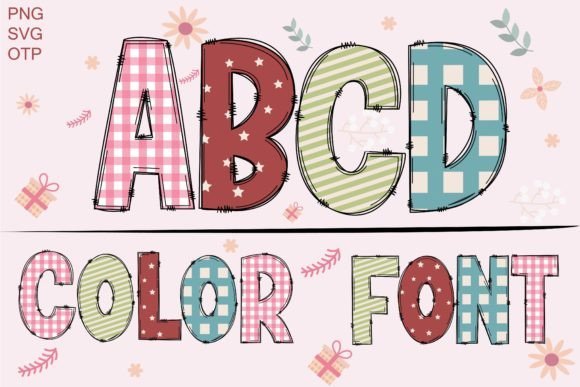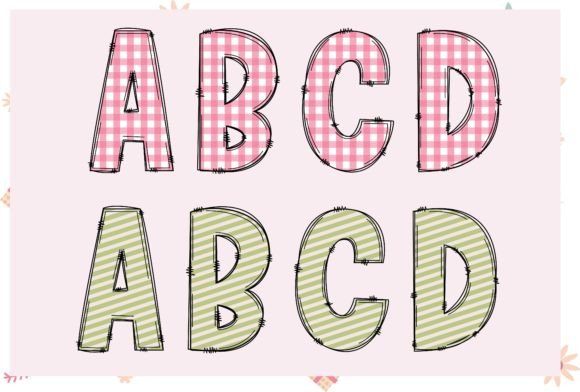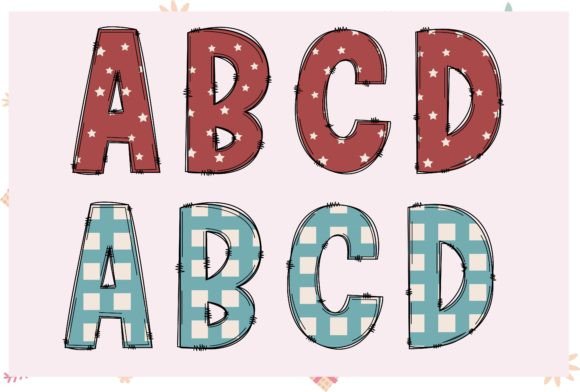
Deck the Halls with the Perfect Font: Christmas Day Font
It’s that time of the year when creativity knows no bounds, and the world is filled with festive cheer. You’re sitting at your desk, surrounded by scraps of paper, glue, and glitter, trying to come up with the perfect design for your holiday card. Suddenly, a spark of inspiration hits you, and you know exactly what’s missing – a font that captures the essence of the season.
Enter the Christmas Day Font, a cool, simple, and playful display font that’s about to take your designs to the next level. This incredibly versatile font is perfect for elevating your creative ideas, whether you’re a graphic designer, artist, or simply a crafty enthusiast. With its compatibility across various software, including PhotoShop, Illustrator, Silhouette, and Inkscape, you can unlock endless possibilities with the Christmas Day Font.
Christmas Day Font Key Features
- Unique Characteristics: Features a festive and playful design, with intricate details and ornaments, perfect for adding a touch of holiday cheer to designs
Christmas Day Font Review
✨ The Christmas Day Font is a unique and eye-catching typeface that perfectly captures the festive spirit of the holiday season. The bold, playful design makes it ideal for Christmas-themed projects, such as greeting cards, gift tags, and social media graphics. The font’s versatility allows it to be used in a variety of contexts, from formal invitations to casual social media posts.
- ✨ The font’s festive feel makes it perfect for Christmas-themed projects.
- ✨ The bold design is easy to read and stands out in various contexts.
- ✨ The font is highly versatile and can be used in a variety of projects.
⚠️ However, there are some limitations to the Christmas Day Font. The font’s design can come across as a bit too flashy or over-the-top for some users. Additionally, the font may not be suitable for projects that require a more subtle or elegant design aesthetic.
- ⚠️ The font’s design may be too flashy for some users.
- ⚠️ The font may not be suitable for projects that require a more subtle design aesthetic.
Overall, the Christmas Day Font is a great option for users who want to add a touch of festive flair to their projects. While it may not be suitable for every project, it’s a fun and playful typeface that’s perfect for capturing the spirit of the holiday season.
Use Christmas Day font to add a festive touch to your holiday designs, such as greeting cards, gift tags, and social media posts.
Combine Christmas Day font with other festive elements, such as holly leaves, snowflakes, or Christmas trees, to create a cohesive and holiday-themed design.